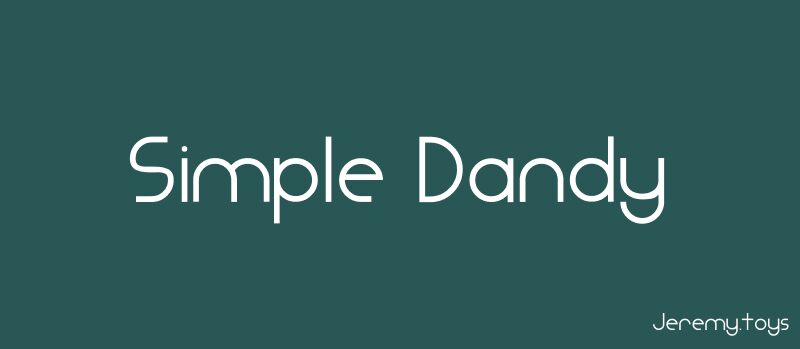
Simple Dandy Light
Simple Dandy Light font by Jeremy Edelblut is a light sans serif typeface that elegantly complements the Simple Dandy family. Modernist influences are obvious through curved slender figures, minimalist design, and a very open character. The font appears delicate but not fragile, conveying an airy feel while maintaining the text’s legibility.
This open elegant typeface is suited for product packaging designs (food, beauty…), stylish book covers and page content, magazines, journaling goods etc. Consider it for greeting cards or invitations typography (weddings, baby showers…) stationary branding projects and similar creative needs.